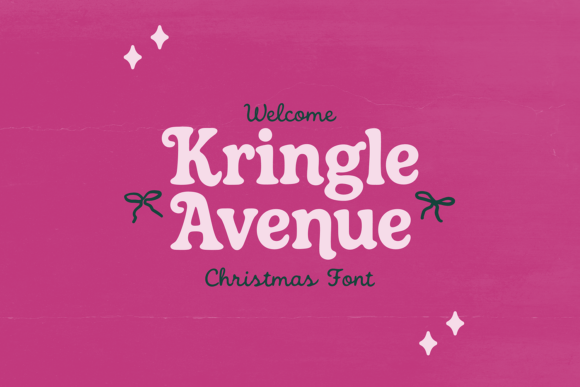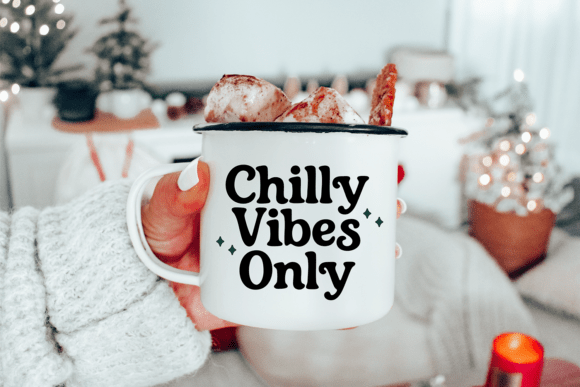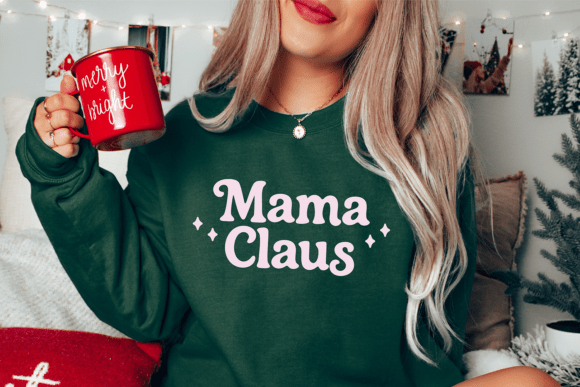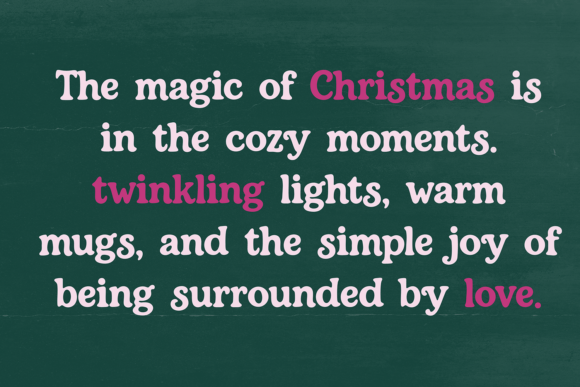
Kringle Avenue Font
Immerse yourself in the spirit of the season with Kringle Avenue Christmas – Bold Christmas Elf, a distinctive serif font. Its warm, whimsical style effortlessly blends boldness and adorability, making it a stellar choice for crafting captivating Christmas cards. Embodying the charm of festive cheer, Bold Christmas Elf brings the magic of the yuletide straight to your design canvas.